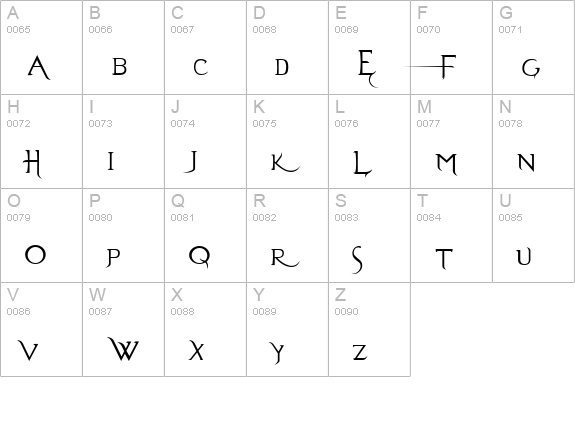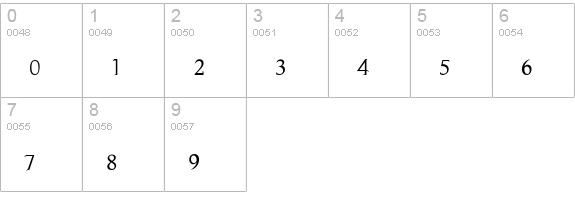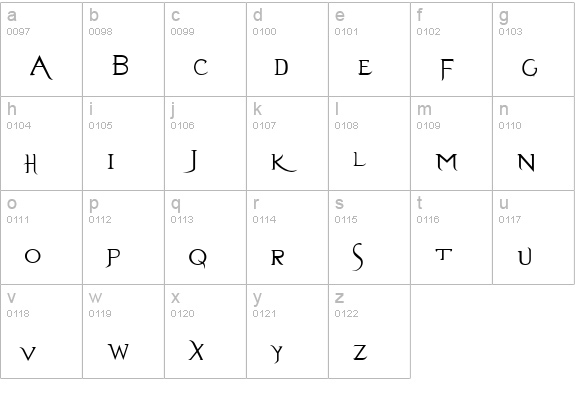
Evanescent Series B Font Details
Evanescent Series B font is a stunning display typeface that exudes elegance and sophistication. Its intricate details and unique design make it perfect for adding a touch of luxury to any project. The delicate curves and flowing lines of Evanescent Series B font give it a sense of ethereal beauty that is sure to captivate your audience. This font is not only visually appealing but also versatile, making it suitable for a wide range of design projects, from branding to editorial design. Whether you're creating a logo, poster, or website, Evanescent Series B font will elevate your work to the next level. And the best part? Evanescent Series B font is available for free download at FontsMarket.com. So you can easily access this exquisite font and use it in your projects without any cost. Don't miss out on this opportunity to enhance your designs with the enchanting beauty of Evanescent Series B font. Download it today and let your creativity shine!